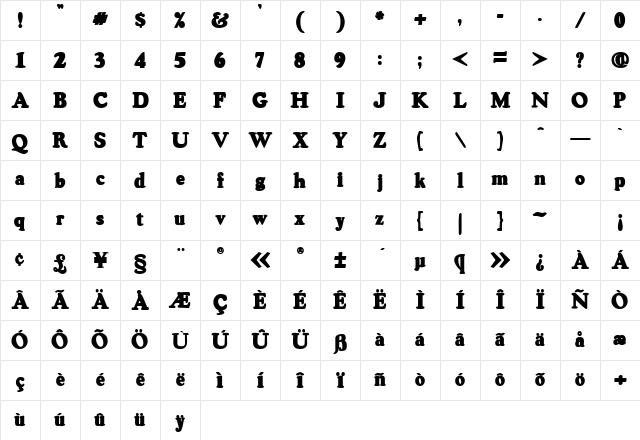
BeaconBlackSSK Bold
BeaconBlackSSK Family
BeaconBlackSSK Bold
Complete BeaconBlackSSK Bold glyph index. Displaying only characters natively supported by BeaconBlackSSK Bold font.
Design Context for BeaconBlackSSK
BeaconBlackSSK is a composed and adaptable typeface that performs quietly and consistently across a wide range of design contexts. Its bold stroke weight gives it real presence on the page.